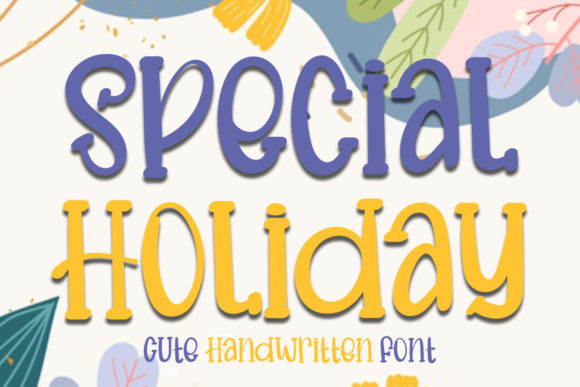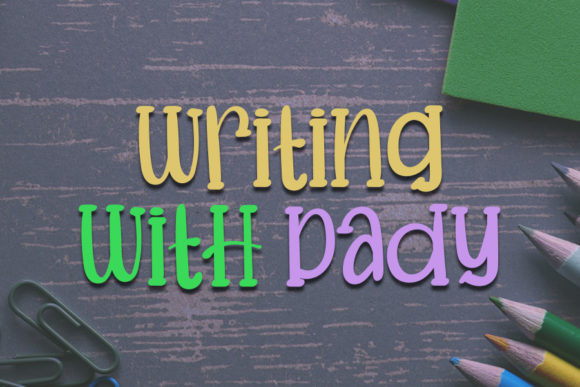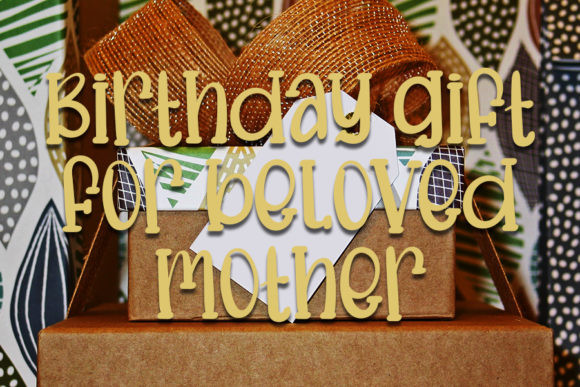
Special Holiday Font
Special Holiday is a simple, all round and cute display font. Its flexibility and jolly spirit will brighten up each of your designs. Have fun with this beautiful font and explore its endless variations.